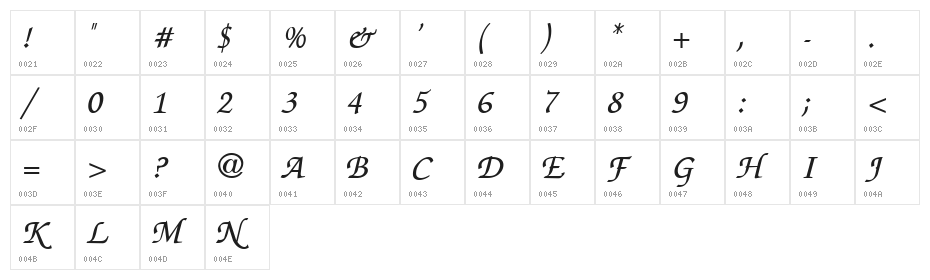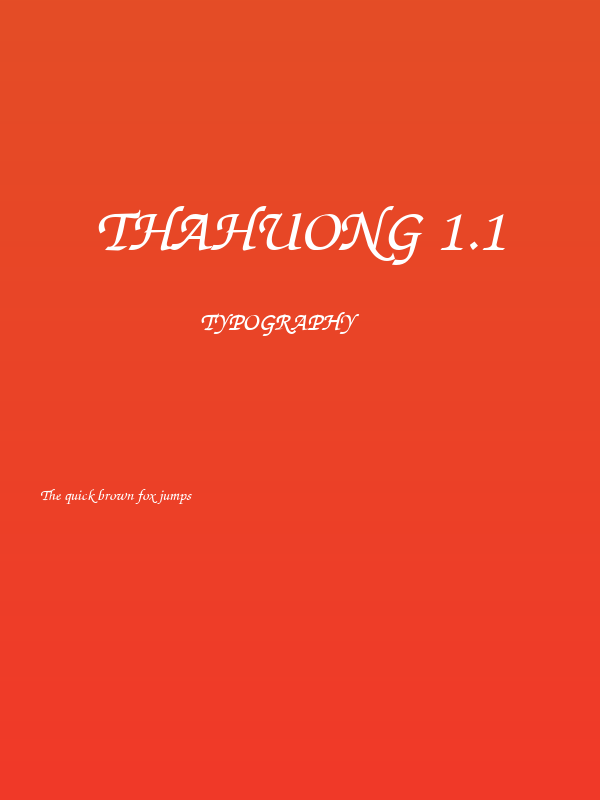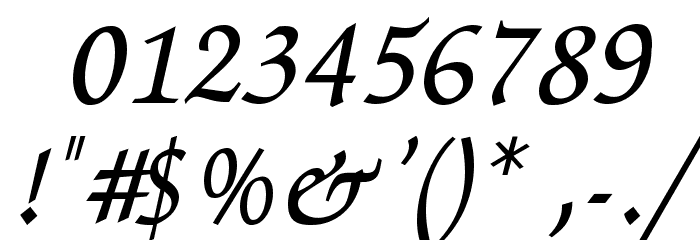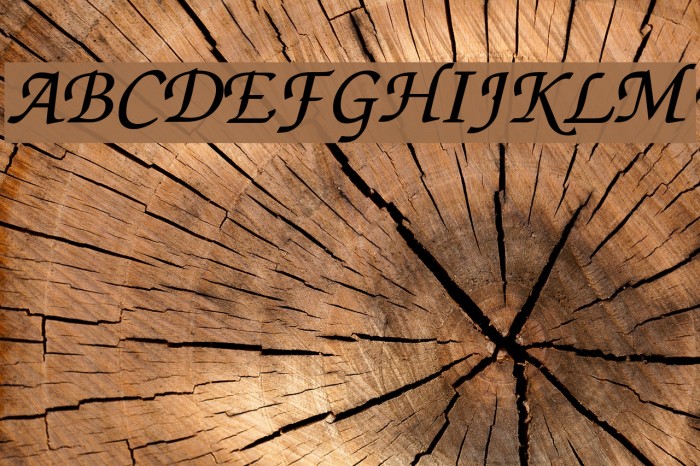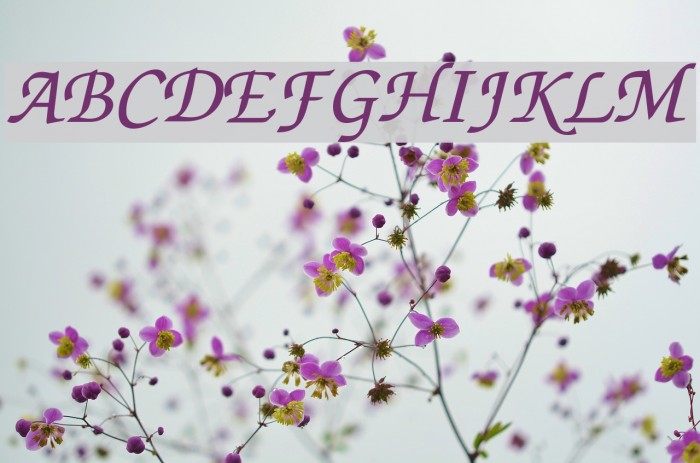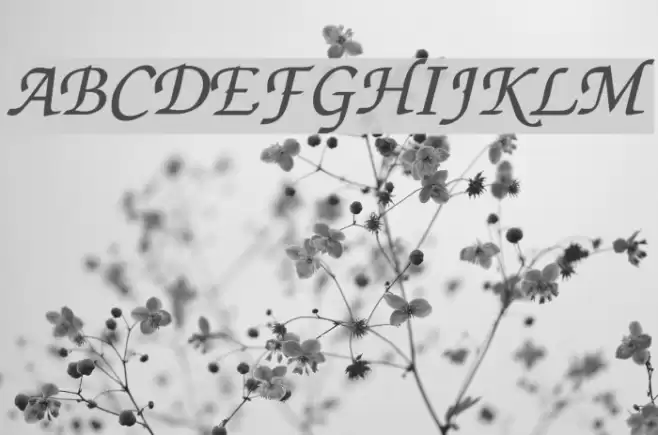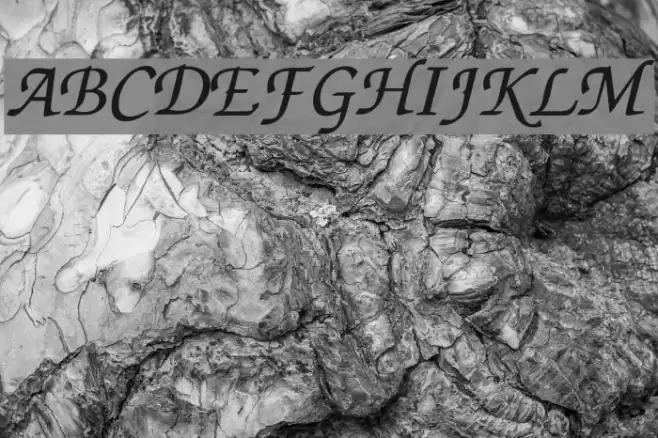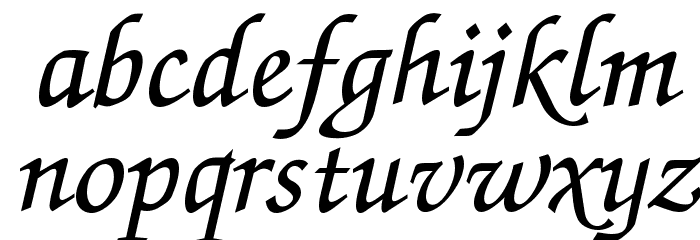
ThaHuong 1.1 Font
ThaHuong 1.1 Description
This font exhibits a classic and elegant script style, characterized by its flowing, cursive letterforms. The uppercase letters are bold and slightly slanted, giving a sense of movement and sophistication. The lowercase letters maintain a consistent slant, with smooth curves and delicate connections between strokes. The numerals are designed to match the overall style, with a slight slant and elegant curves. Special characters are well-integrated, maintaining the script's fluidity. This font is ideal for projects that require a touch of elegance and formality.
| Overall Style | Classic |
| Use Case | Headlines, Invitations, Branding |
| Proposed Projects | Ideal for wedding invitations, formal event programs, elegant branding, and high-end product packaging. |